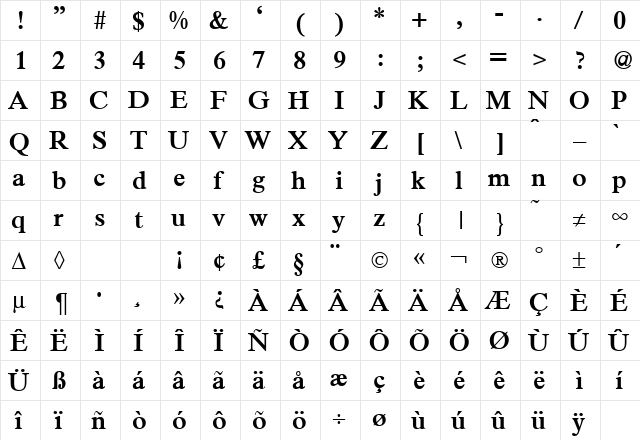
RomanInserat Regular
Design Context for RomanInserat Typeface
RomanInserat is a composed and adaptable typeface that performs quietly and consistently across a wide range of design contexts.